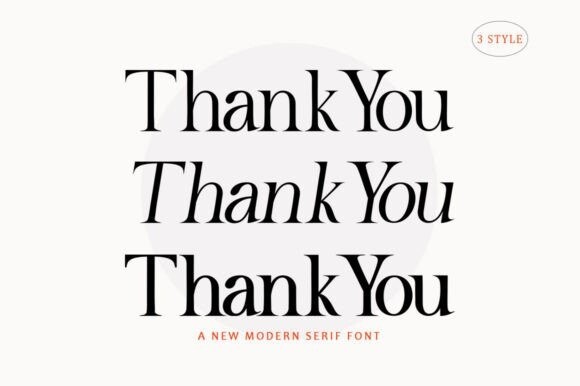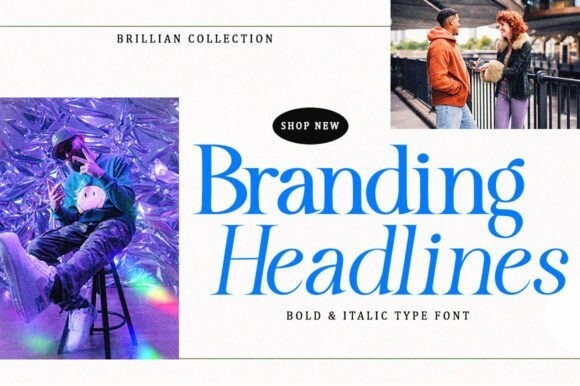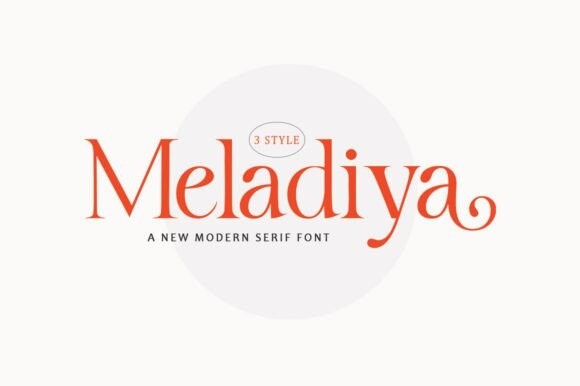
Meladiya Font
Meladiya Font is an elegant serif font, that features a very delicate and classy look. Not too thin and not too thick, balanced and varied, Meladiya was designed to enhance the beauty of your projects.